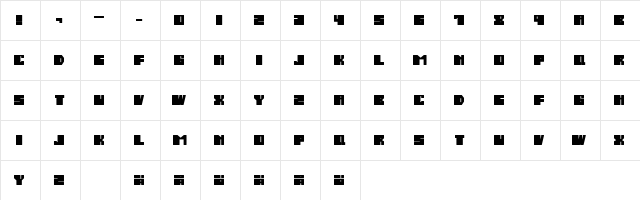
Complete Salmiak Bold Rounded Regular glyph index. Displaying only characters natively supported by Salmiak Bold Rounded Regular font.
Salmiak Bold Rounded softens its letterforms with rounded terminals, giving it an approachable, friendly quality that works well in consumer-facing and digital contexts. Its bold stroke weight gives it real presence on the page.
Well-suited to UI design, mobile interfaces, and any brand that wants approachability without sacrificing clarity.
Font Pairing: Pairs well with a rounded or humanist sans for body copy, maintaining the friendly tone without relying on Salmiak Bold Rounded to carry extended reading.
Pro Tip: Use Salmiak Bold Rounded for UI elements, app interfaces, and anywhere a friendly, approachable tone needs to be maintained without sacrificing clarity.